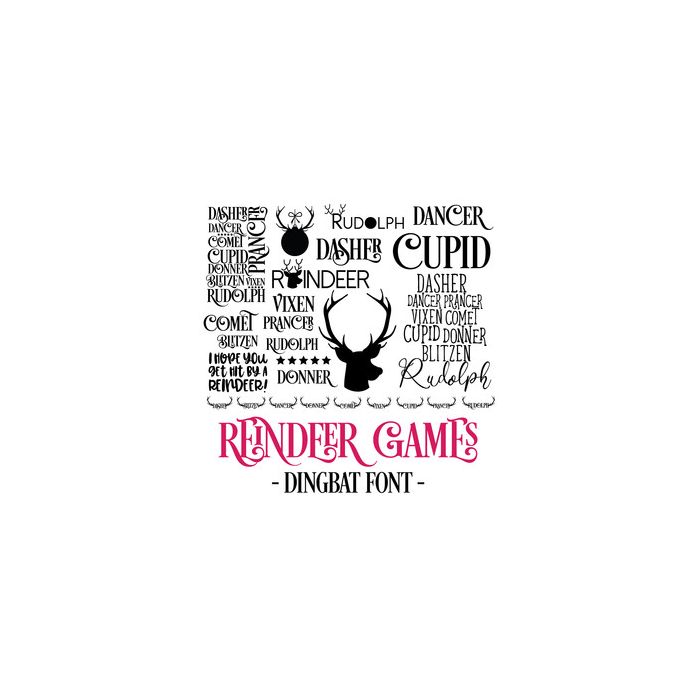
Reindeer Games Christmas Dingbat Font. Includes 26 fancy decorative reindeer words, quotes and elements. All are assigned to an upper case letter starting with 'A' or can be accessed via glyphs. For more design ideas, coordinating designs & products and inspiration, please visit my blog http://www.sarahhurleyblog.com